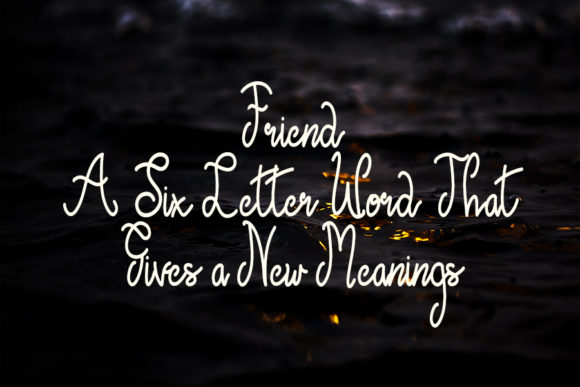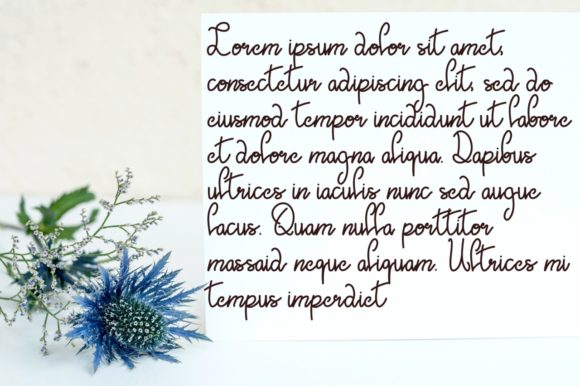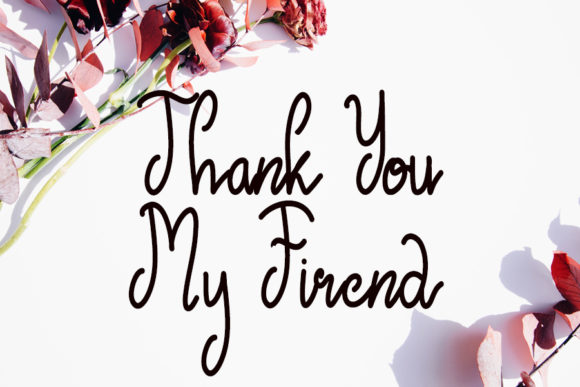
The Perfect Blend of Whimsy and Elegance: Golden Seed Font
Have you ever sat down with a blank canvas, feeling the thrill of creating something new, yet unsure of where to begin? The spark of inspiration hits, and before you know it, your imagination runs wild with endless possibilities. For designers, this moment is the essence of what drives us to craft unique and captivating designs. And, for those seeking that perfect blend of whimsy and elegance, look no further than the Golden Seed Font.
This distinct handwritten font is a masterpiece of versatility, making it a valuable addition to any designer’s toolkit. Its friendly and well-rounded letters are sure to bring a touch of warmth to any project, from elegant invitations to playful social media graphics. With the Golden Seed Font, you can unleash your creativity and bring your ideas to life in a way that’s truly one-of-a-kind.
- Unique Characteristics: The Golden Seed Font features a unique blend of Eastern and Western script styles, creating a distinctive and elegant aesthetic.
Designer Review: Golden Seed Font
As a designer, I had the chance to work with Golden Seed Font, and I must say it’s a unique and intriguing choice. Here are my thoughts on what works well and what doesn’t.
- Unique Design: Golden Seed Font has a distinct and modern aesthetic that sets it apart from other fonts. Its blend of cursive and sans-serif elements creates a visually appealing combination.
- Legibility: Despite its complex design, the font remains highly legible, even at smaller sizes.
- Expressiveness: Golden Seed Font is perfect for conveying a sense of elegance and sophistication, making it ideal for branding and marketing materials.
- Not Ideal for Body Text: While the font is great for headings and titles, it may not be the best choice for body text due to its complexity and potential readability issues.
Overall, Golden Seed Font is a great choice for designers looking to add a touch of sophistication and elegance to their projects. However, it’s essential to consider its limitations and compatibility issues before making it a primary font choice.
The Golden Seed Font is perfect for:
- Brand logos and marketing materials.
- Handmade craft labels and packaging.
For the best results, use the Golden Seed Font in conjunction with a neutral or pastel color scheme and plenty of whitespace.